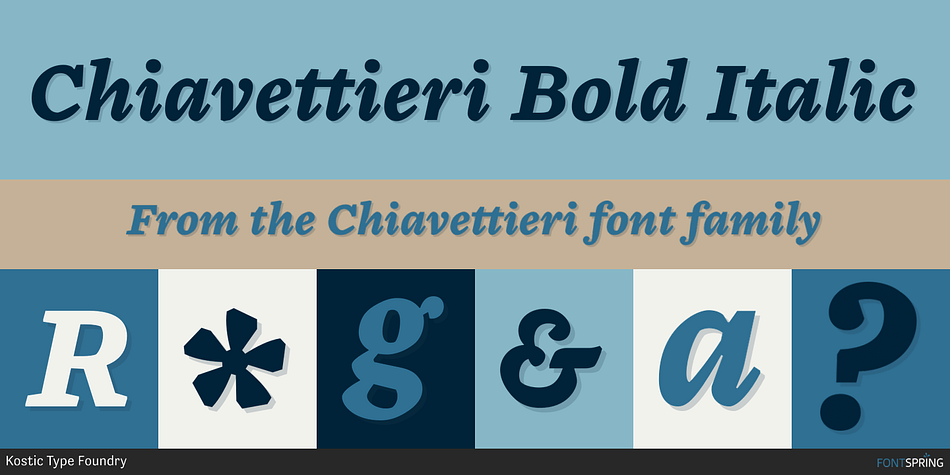
Chiavettieri Bold Italic
Chiavettieri is a serif font family. This typeface has six styles and was published by Kostic Type Foundry.
Chiavettieri draws inspiration from Humanist types, marked by low contrast between thick and thin strokes and the angle of stress in the bowls of letters.
Chiavettieri draws inspiration from Humanist types, marked by low contrast between thick and thin strokes and the angle of stress in the bowls of letters. On the other hand, generous x-height, clean angled serifs and sharp cuts in the ball terminals suggest a more contemporary look. All these characteristics make it a robust, well balanced, legible typeface ideally suited for book text, editorial and publishing, as well as web and screen text.
With distinct Italics, small capitals, complete set of superior lowercase (Latin), oldstyle and lining figures (each in tabular and proportional widths), ligatures, fractions, superior and inferior characters – Chiavettieri is equipped for proper typography.